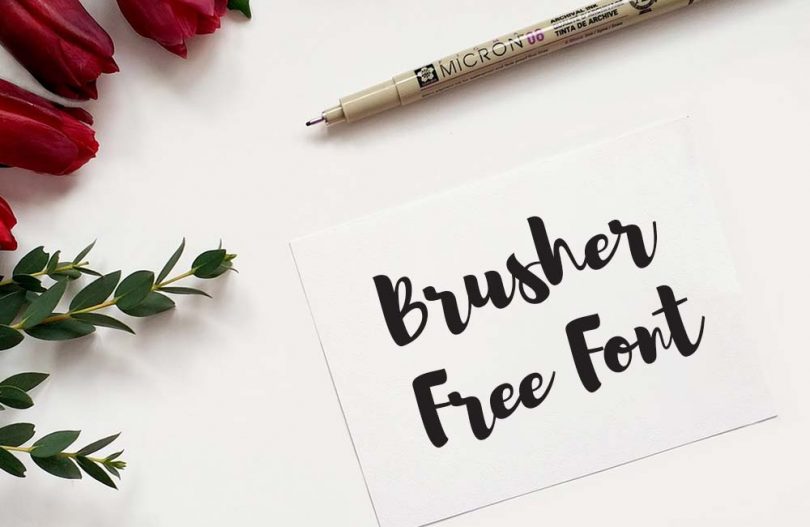
Looking for a bold, smooth, and modern brush-style font to elevate your designs? The Brusher Font is an exceptional hand-lettered brush script designed by Vlad Cristea and Raul Taciu. It features smooth lines and precise strokes that perfectly mimic a natural hand-drawn look.
What is Brusher Font?
Brusher is a highly popular display brush font released by Vlad Cristea and Raul Taciu. Crafted with a high-contrast style and modern brush-lettered aesthetic, it works incredibly well for headlines, branding, apparel, packaging, and social media designs.
While many script fonts suffer from rough edges that make them difficult to use in vector designs, Brusher was built with smooth, clean lines. This ensures it remains crisp and legible whether printed on a physical product or scaled up on a digital screen.
Brusher Font Glyphs & Character Map
The font is built with 100 glyphs that cover everything you need for everyday typography projects, including:
- Uppercase Letters: Smooth, bold brush-styled capitals.
- Lowercase Letters: Elegantly connected script characters.
- Numbers & Symbols: Clean numeric digits (0–9) and essential mathematical/currency symbols.
- Special Ligatures: Includes smooth “ff”, “ll”, and “tt” ligatures for a natural handwriting flow.
Creative Ways to Use Brusher Font
Because of its balanced weight and natural flow, Brusher is extremely versatile. Here are some of the best ways to incorporate it into your creative workflow:
- Logos & Branding: Ideal for modern lifestyle, beauty, organic food, and streetwear brands.
- Quote Art & Merchandising: Perfect for printing motivational quotes on mugs, t-shirts, and posters (e.g., “Coffee is always a good idea!”).
- Social Media Graphics: Easily create eye-catching Instagram posts, YouTube thumbnails, and Pinterest pins that demand attention.
- Invitations & Cards: Adds a personalized, handmade touch to event flyers, wedding cards, and greeting cards.
Who designed the Brusher font?
The font was collaboratively designed and released by designers Vlad Cristea and Raul Taciu.